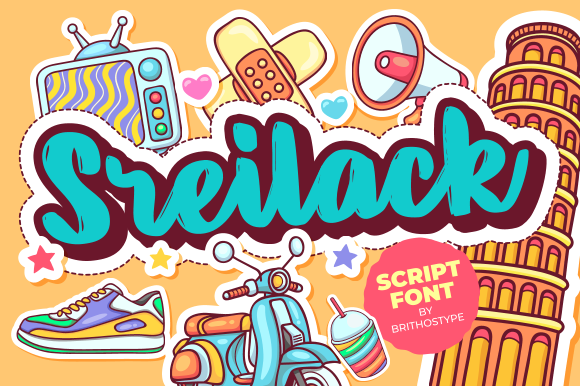
In a world where creativity reigns supreme, your designs deserve a touch of elegance, a symphony of strokes that dance across the canvas of your imagination. Enter Sreilack, a display font that embodies gracefulness in every curve, a masterpiece that transforms your words into works of art.
Sreilack, crafted by the skilled hands of brithostype, is not just a font; it's a journey through the realms of beauty, an experience that redefines the boundaries of expression. Its thick, flowing letters, reminiscent of a gentle stream cascading over rocks, bring a sense of fluidity and movement to your designs.
With Sreilack, your logos will radiate an air of sophistication, leaving a lasting impression on your audience. The flowing lines and curves of each character intertwine harmoniously, creating a visual symphony that captures attention and sparks admiration.
Imagine your brand adorned with the elegance of Sreilack, standing out amidst the mundane and the ordinary. Your designs will possess a timeless charm, transcending the boundaries of trends and fads. Sreilack is the key to unlocking a world of captivating visuals, a passport to a realm where creativity flourishes and boundaries dissolve.
Whether you're crafting a logo for a luxury brand, a poster for an art exhibition, or a wedding invitation that exudes romance, Sreilack is your muse, your faithful companion in the realm of visual storytelling. Its versatility knows no bounds, adapting seamlessly to a myriad of design styles, from the classic and timeless to the modern and edgy.
Don't settle for ordinary fonts that blend into the background. Embrace the allure of Sreilack, a font that commands attention, a font that elevates your designs to new heights of elegance and sophistication. Let your creativity soar on the wings of Sreilack and witness the transformation of your designs into breathtaking masterpieces.